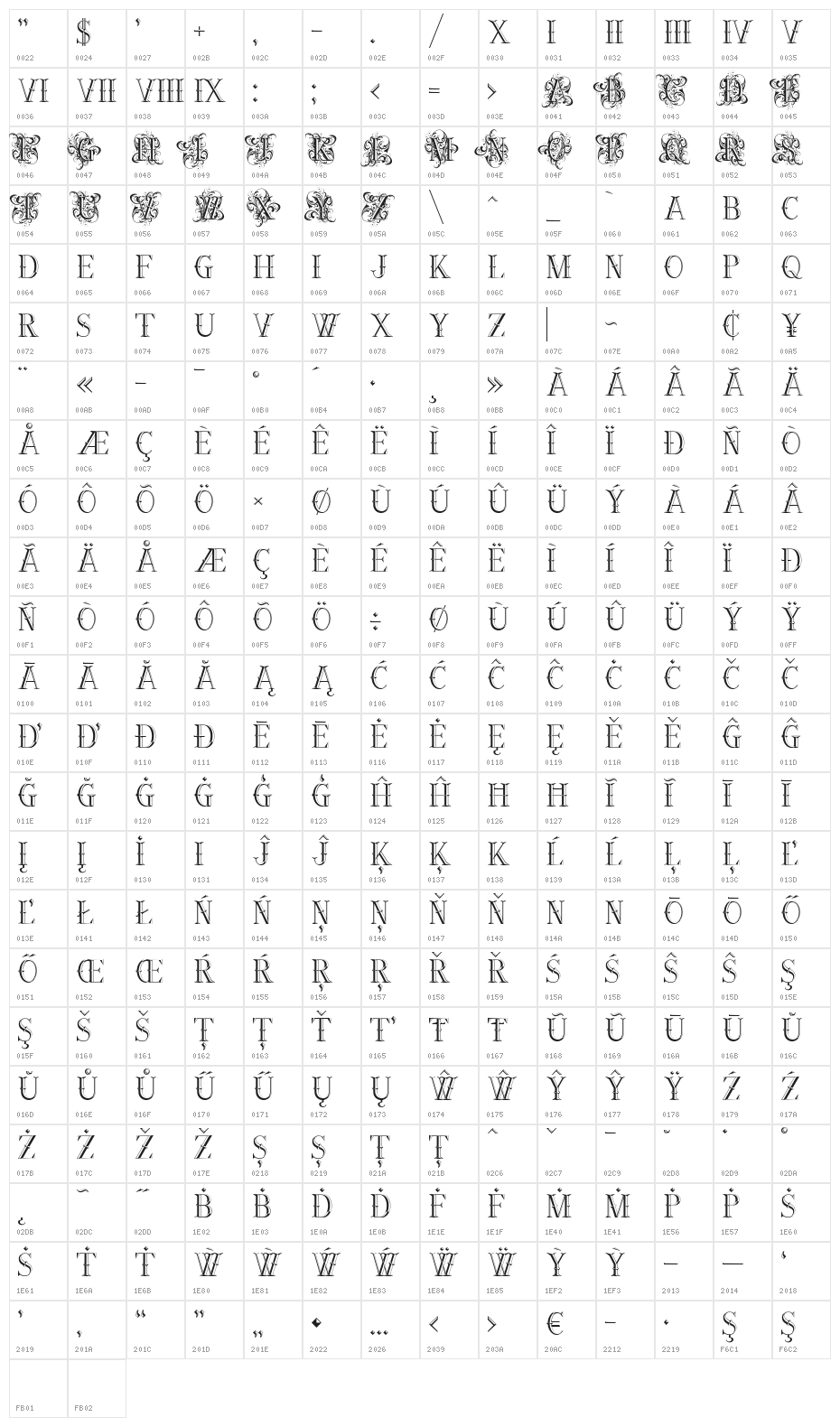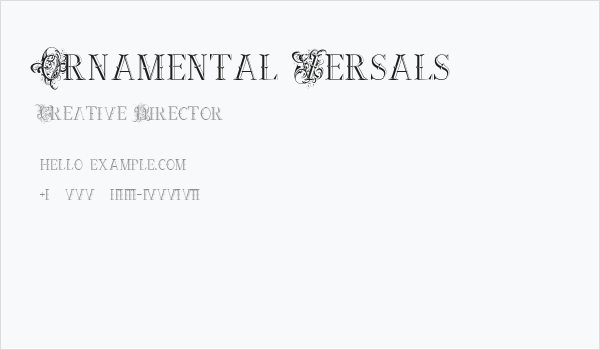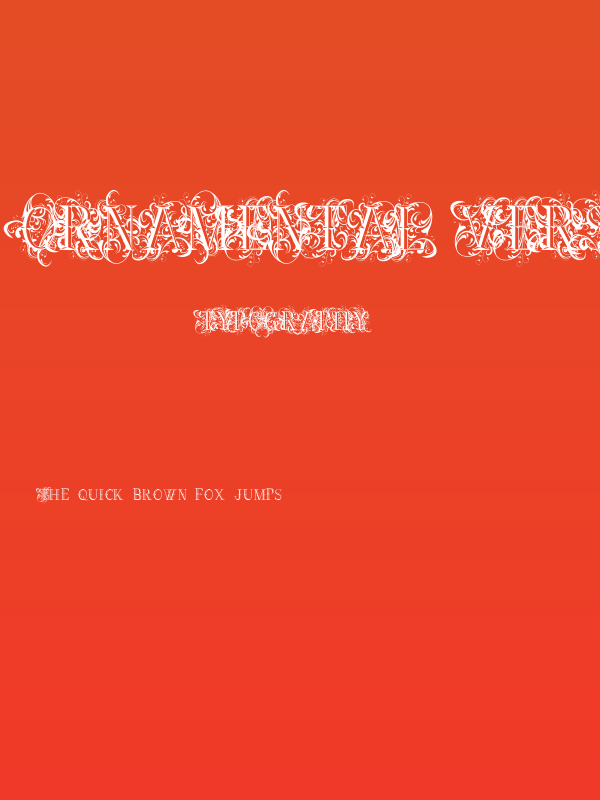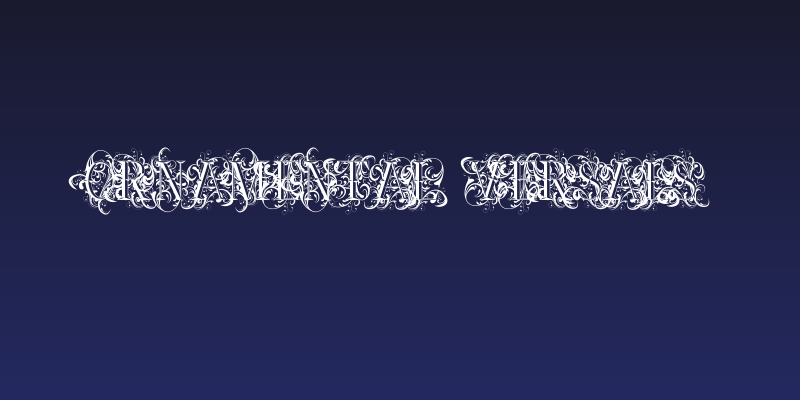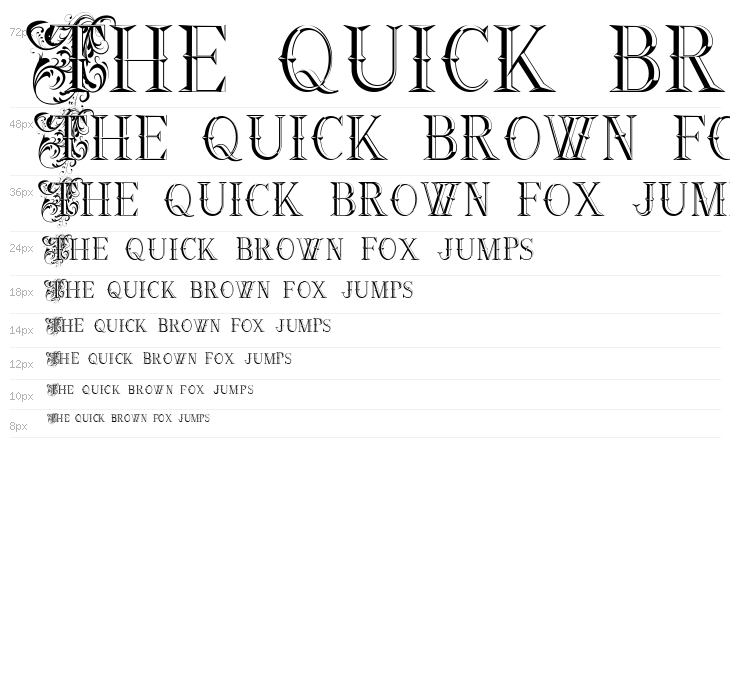
Ornamental Versals Font
Ornamental Versals Description
This font is a highly decorative and ornate typeface, characterized by intricate flourishes and embellishments that extend from the main strokes of the letters. The uppercase letters are particularly elaborate, featuring swirling patterns that give a sense of elegance and grandeur. The font maintains a consistent stroke width, providing a balanced appearance despite its complexity. It is designed to capture attention and convey a sense of luxury and sophistication, making it ideal for special occasions or formal settings. The characters are well-defined, ensuring readability while maintaining their decorative nature.
| Proposed Projects | Perfect for wedding invitations, luxury branding, high-end product packaging, and decorative headings. |